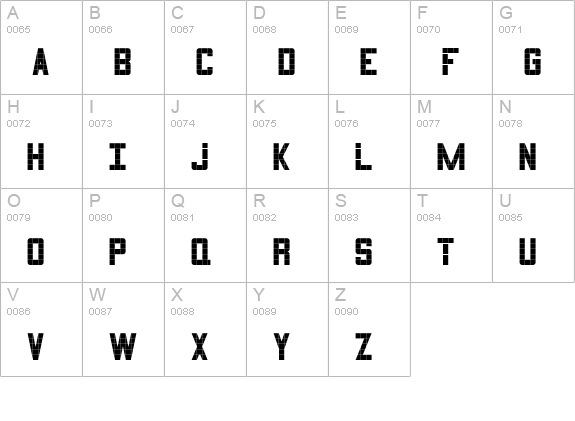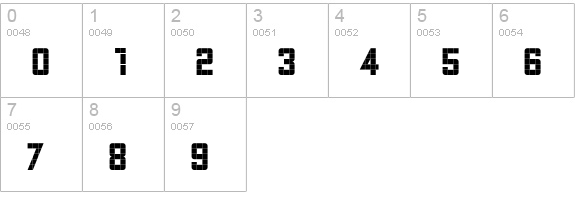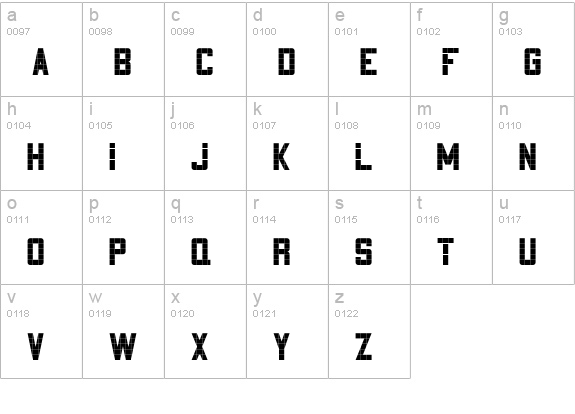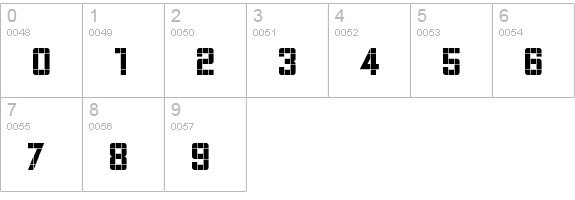
3x5 Font Details
Discover the elegance and sophistication of the 3x5 font, a modern and sleek typeface that is perfect for a wide range of design projects. With its clean lines and minimalist aesthetic, this font exudes a sense of professionalism and style. Whether you are creating a logo, branding materials, or a website design, the 3x5 font will add a touch of sophistication to your work. Best of all, this font is freely available to download at FontsMarket.com, making it easy to incorporate into your projects without any additional cost. Elevate your designs with the timeless appeal of the 3x5 font today!